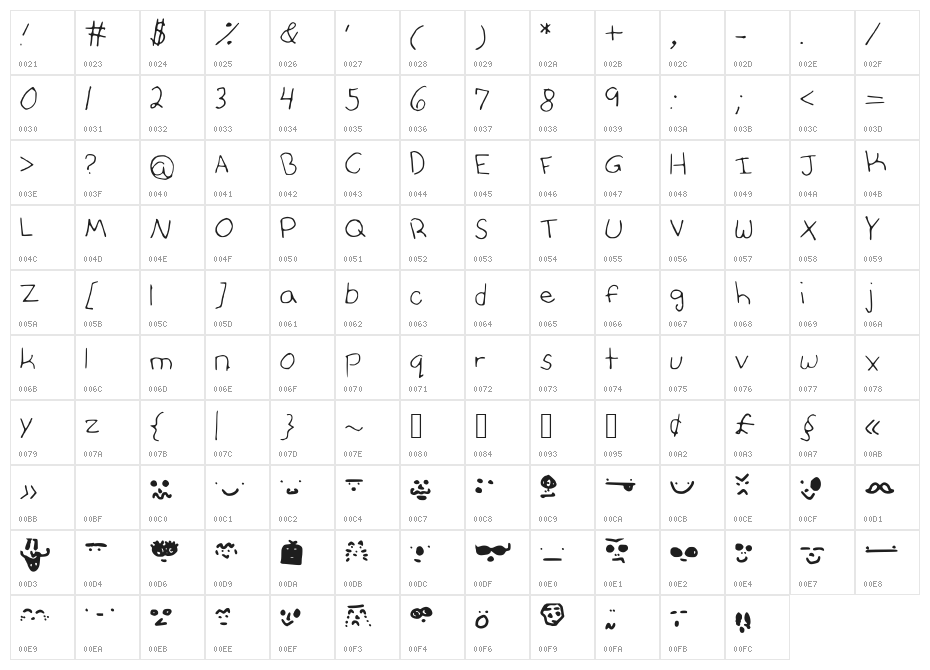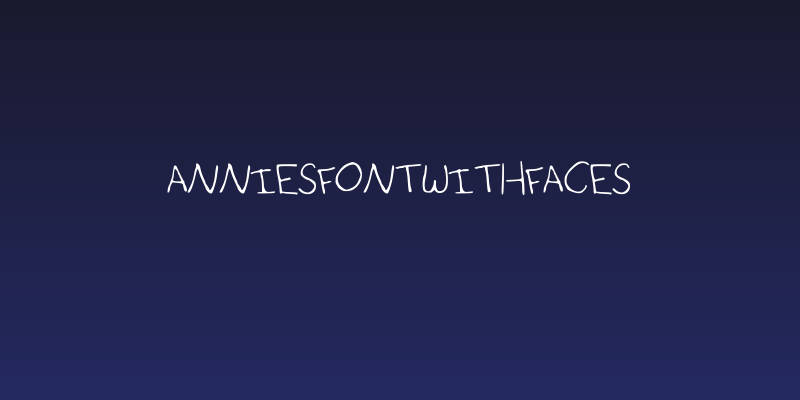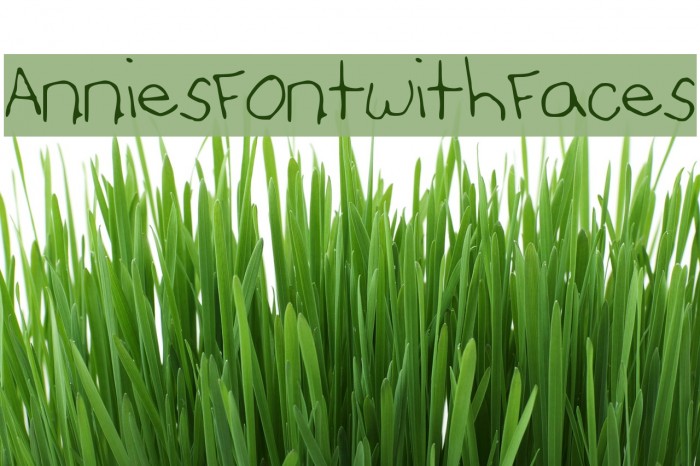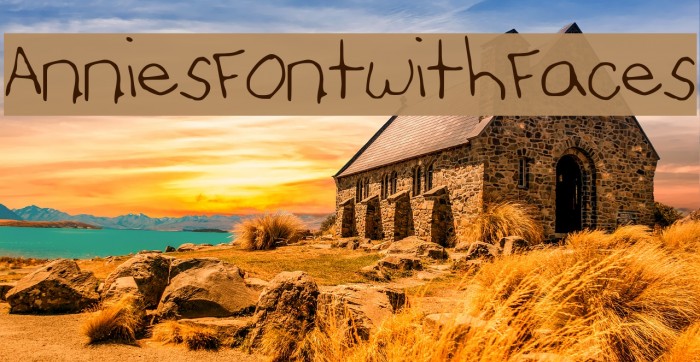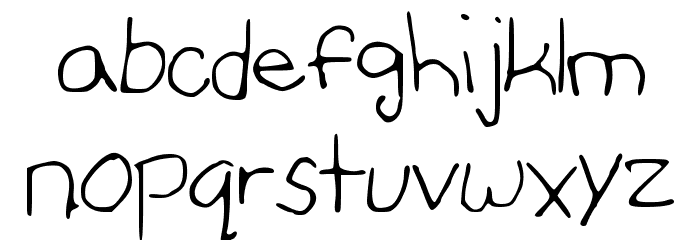
AnniesFontwithFaces Font
AnniesFontwithFaces Description
This font features a playful and casual handwritten style, characterized by its irregular strokes and whimsical appearance. The letters are slightly uneven, giving it a natural and organic feel, reminiscent of a personal note or doodle. The uppercase and lowercase letters maintain a consistent style, with rounded edges and a slight tilt that adds to its charm. Numbers and special characters are included, following the same informal aesthetic. This font is perfect for projects that require a personal touch or a fun, approachable vibe.
| Use Case | Headlines, Informal text, Personal projects |
| Proposed Projects | Ideal for greeting cards, children's books, personal blogs, and informal invitations. |